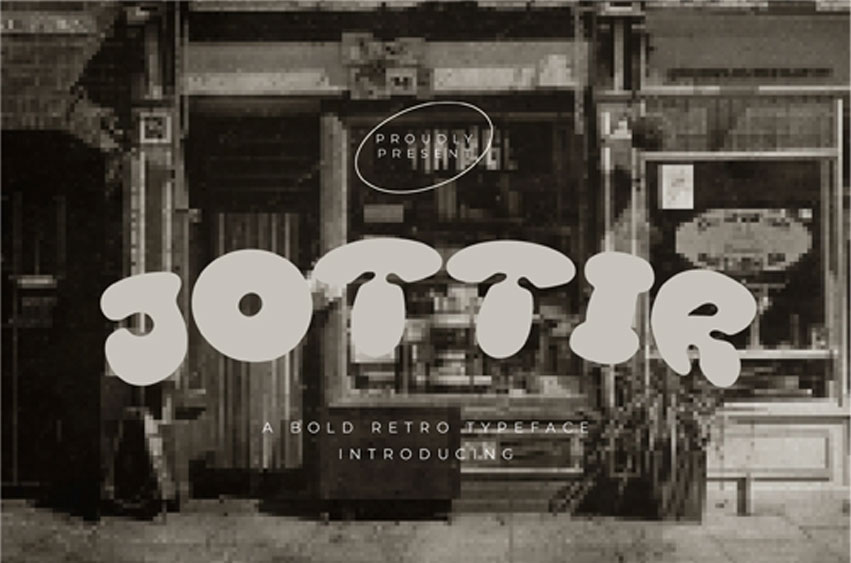
Jottir Font is a hand-drawn, retro-inspired font that captures the spirit of classic design with a modern, artistic twist.
Featuring bold, rounded letterforms and unique, imperfect lines, Jottir adds a nostalgic touch to any project while remaining fresh and versatile.